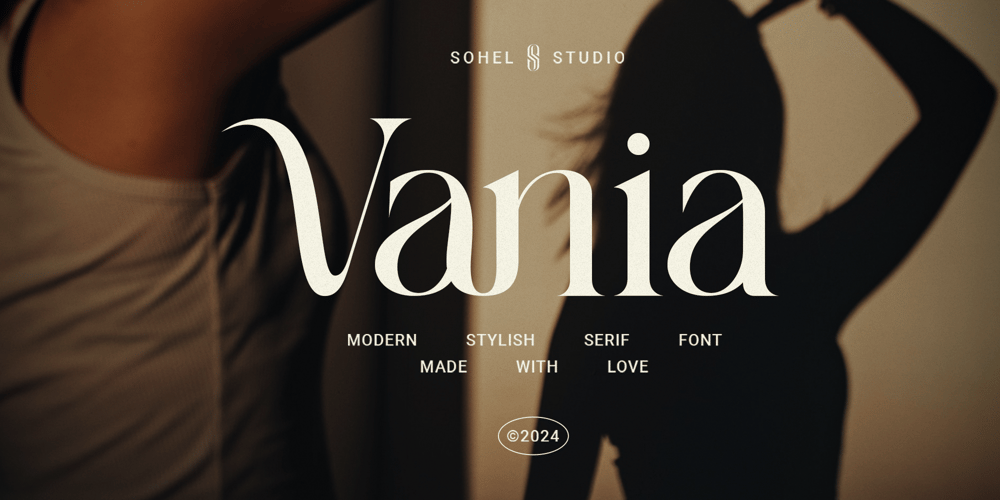
Vania Font Family was designed by Akhmad Husain Rifa’i and published by Sohel Studio. Vania contains 1 styles and family package options. Vania is a Classy serif typeface Unique alternate , multilingual support with perfect kerning. This typeface is perfect for an elegant & luxury logo , classy editorial design, women’s magazine, fashion brand , cosmetic brand, fashion promotion , modern advertising design, invitation card, art quote, home decoration , book/cover titles, special events, and much more. This elegant font needs to be in your collection and is perfect for your next luxury design project.